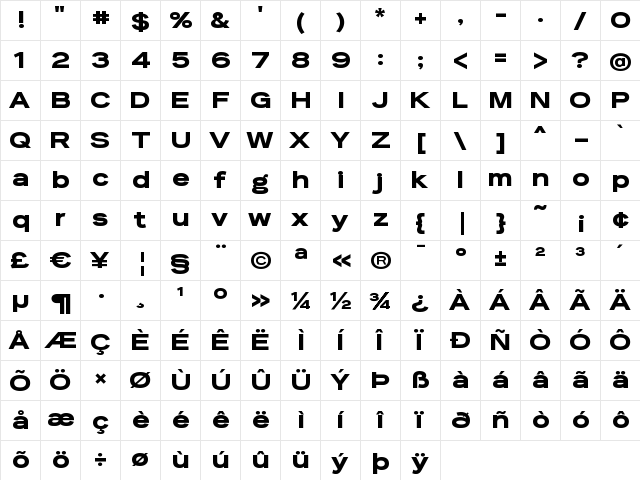
Reservation Wide Black
| Foundry | Silas Dilworth |
| Designer | Silas Dilworth |
Design Context for Reservation Wide Typeface
Reservation Wide takes a measured approach to typography — its balanced proportions and neutral character make it a reliable workhorse for both digital and print work.